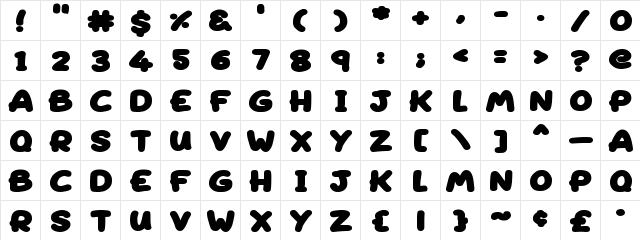
Superfats Regular
Design Context for Superfats Typeface
Superfats is a composed and adaptable typeface that performs quietly and consistently across a wide range of design contexts.